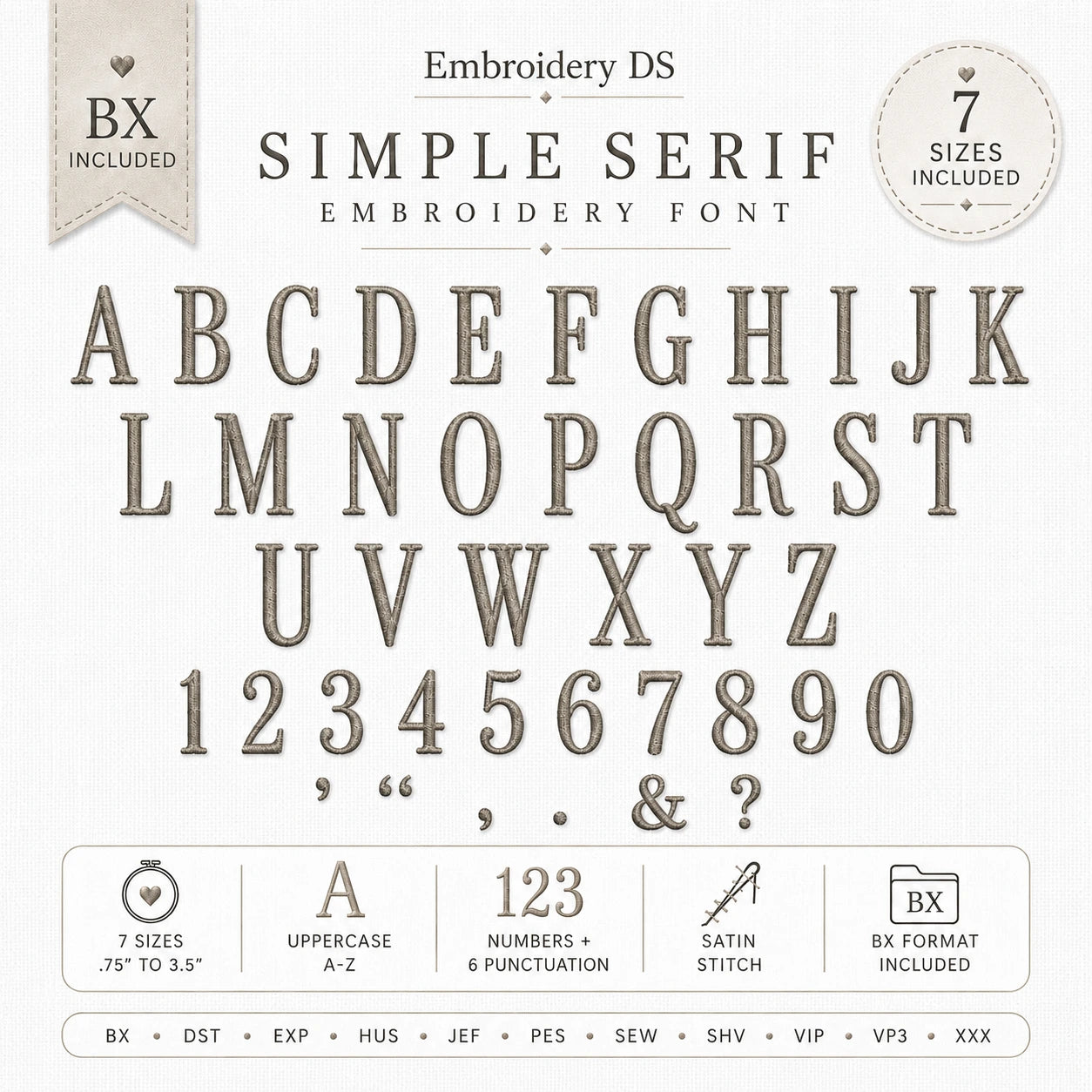
Bring a clean, timeless finish to your embroidery projects with the Simple Serif Embroidery Font. Featuring tall, elegant lettering created with a smooth satin stitch, this classic embroidery alphabet is perfect for personalizing clothing, towels, bags, baby gifts, home décor, accessories, and more.
Whether you’re stitching names, initials, numbers, monograms, or custom phrases, this versatile serif font gives every project a polished and professional look.
✔ Complete Uppercase Alphabet A–Z
✔ Numbers 0–9
✔ 6 Punctuation Symbols
✔ Smooth Satin Stitch
With seven useful sizes included, you can create everything from small initials and baby items to larger names for towels, bags, hoodies, and home décor.
Use the included characters to create names, initials, numbers, words, and personalized phrases for all kinds of embroidery projects.
⭐ Clean Satin Stitch Finish
The Simple Serif Font is designed to provide:
✔ Smooth satin stitching
✔ Clean, elegant lettering
✔ Consistent styling across all seven sizes
✔ Clear and readable characters
✔ A timeless professional finish